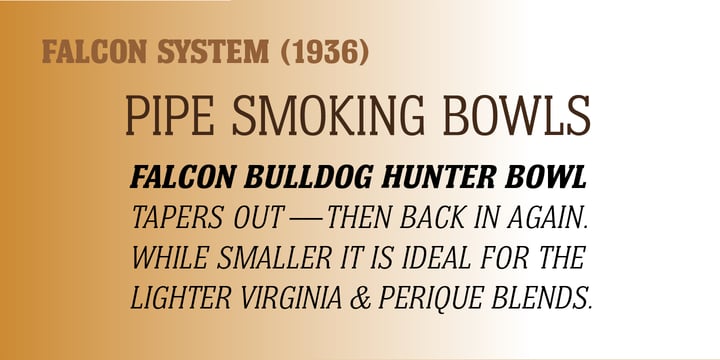
Bulldog Hunter Std®
by Club Type
About Bulldog Hunter Std Font Family
Slab Serif version of the Bulldog family. Hunter family lends itself to on-screen use for web design - the letterforms being legible and robust at small sizes.